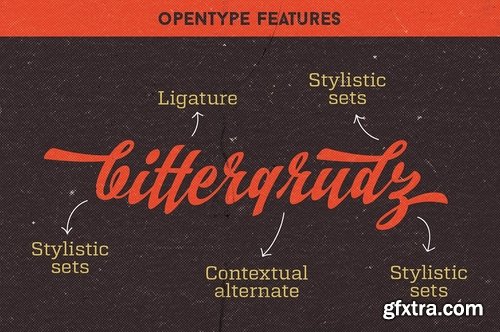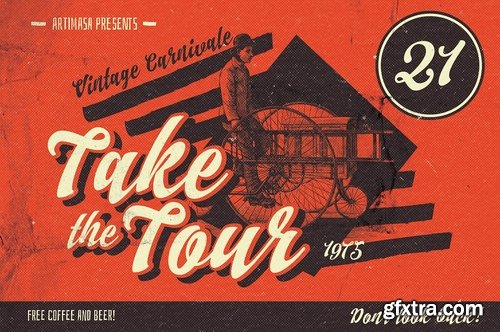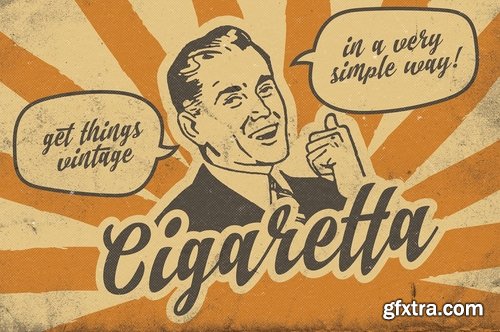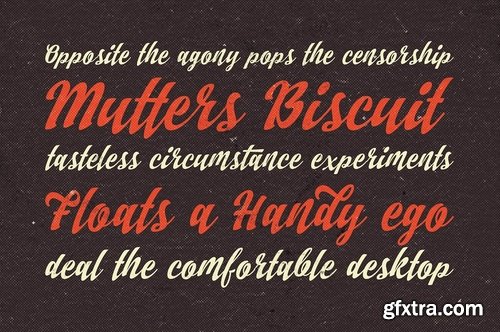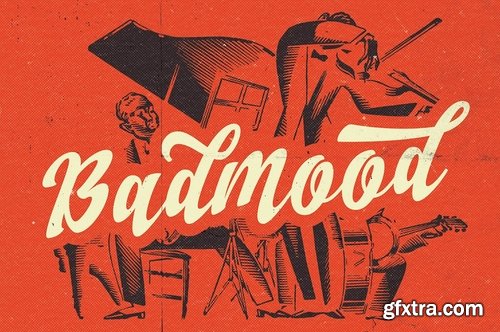
Badmood is a hand-lettered script font for multipurpose usage: poster, advertisement, wedding invitation, greeting card, branding, t-shirt design, etc.It contains 237 glyphs in total and 60 alternative characters to play with. Mix and match the alternative characters in Badmood to create an attractive message or a hand-made content.
The alternative characters in Badmood font were divided into several OpenType features such as Contextual Alternates, Stylistic Sets, Swash and Ligature. The OpenType features can be accessed by using OpenType savvy program such as Adobe Illustrator and Adobe InDesign. Files included : - Badmood.otf - Badmood.ttf - Manual.pdf RAR PASS: BADM9734HYD_GFXTRA